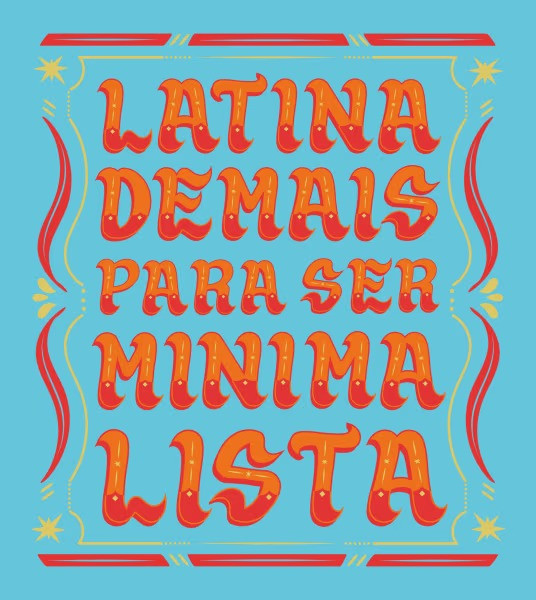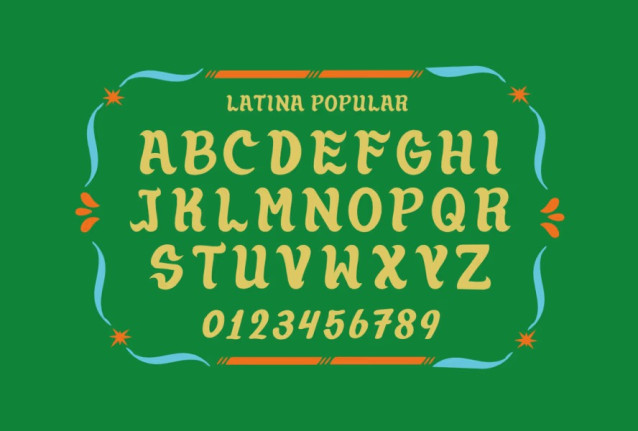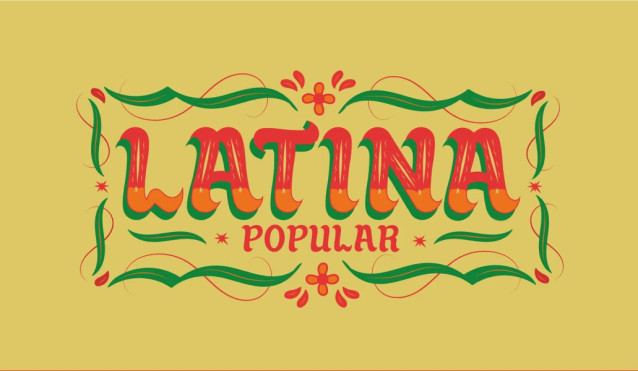
Latina Font A Latina Popular is a font that values the Latin American typical culture, inspiring our vernacular Peruvian letters, popularly known as Chicha.